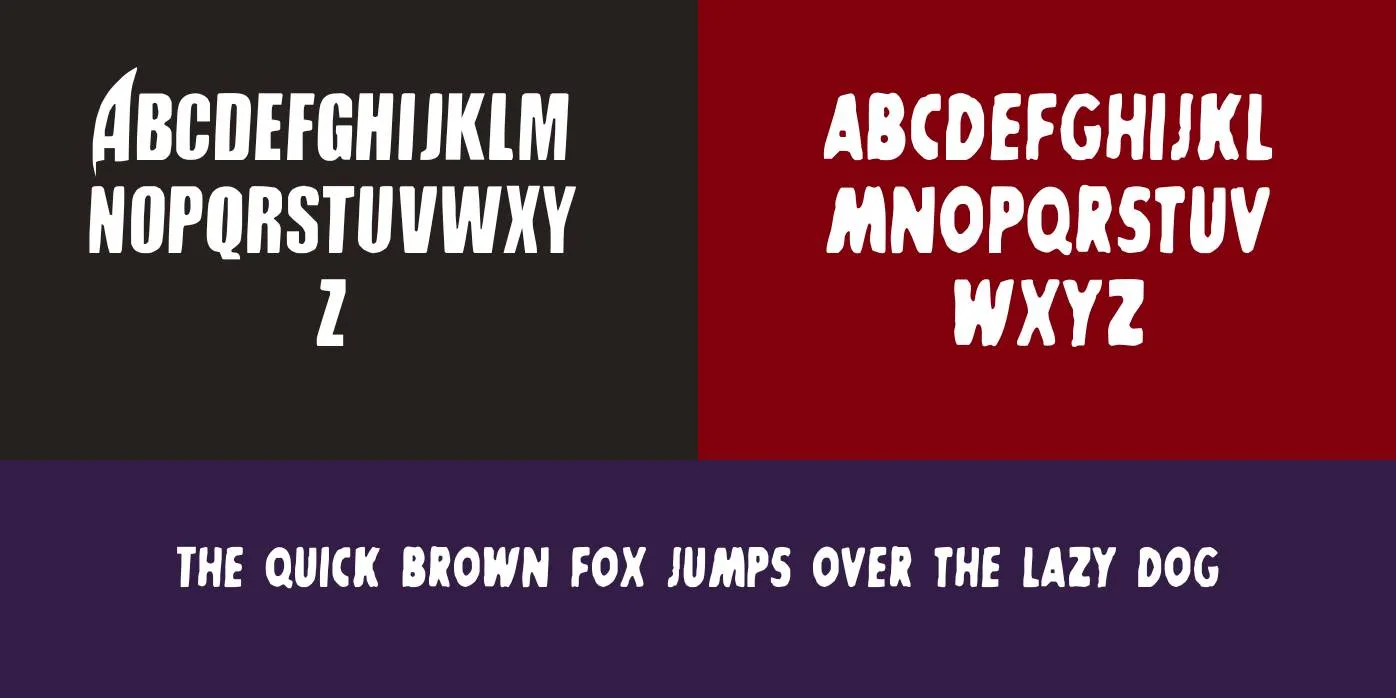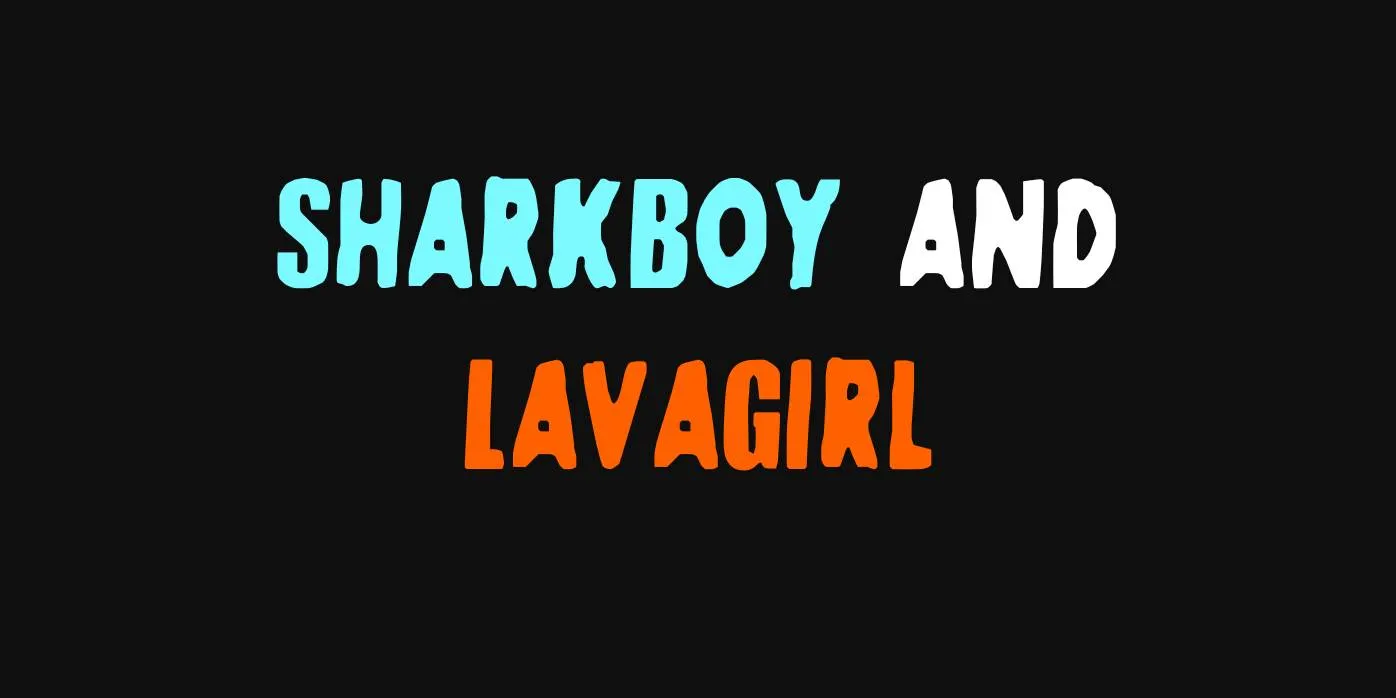
Sharkboy And Lavagirl Font
Sharkboy And Lavagirl Font is a comic type of font. KiddieFonts is the designer of this comic type of font. The characters of this texture are classic, bold, playful, and highly readable. There are 120 glyphs for this typeface.
You can use johnny pistolas font for pairing with this texture. This is an amazing and stunning texture for pairing. You can also try some different options. But this typeface is the best one for pairing with this typeface on the basis of some similarities and differences.